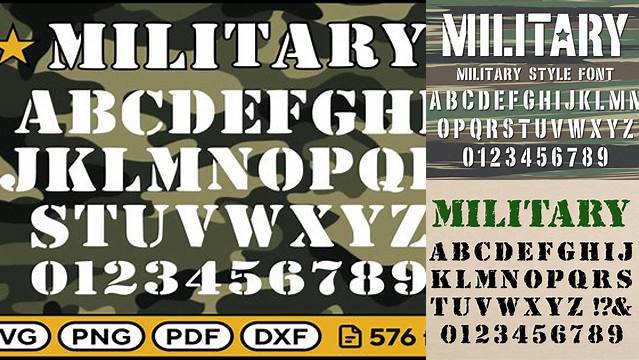
Army Font Free Download: Western & Military Styles
Hey guys! Looking for that perfect army font to give your project a rugged, military, or Western vibe? You've come to the right place! We're diving deep into the world of army normal western font free download, exploring different styles, uses, and how to get your hands on them without spending a dime. So, buckle up and let's get started!
1. Understanding the Appeal of Army and Western Fonts
Why are army normal western fonts so popular? Well, it's all about the feeling they evoke. Army fonts often suggest strength, discipline, and a sense of history. Think classic military stencil fonts or bold, impactful lettering that screams authority. On the other hand, Western fonts bring to mind the Wild West, cowboys, saloons, and a sense of adventure. They're perfect for projects that need a rustic, vintage, or Americana feel. The combination of both styles makes for a versatile and powerful design choice. Whether you're designing a poster, a logo, or even a video game, using the right army normal western font can instantly set the tone and grab attention. So, understanding their appeal is the first step in choosing the perfect font for your project.
2. Key Characteristics of Army Style Fonts
When we talk about army style fonts, we're generally referring to fonts that emulate the kind of lettering you might see on military vehicles, equipment, or official documents. These fonts often have a strong, bold, and no-nonsense appearance. A key characteristic is the use of stencils, where parts of the letters are intentionally broken to allow for easy application using stencils and spray paint. This gives them a very utilitarian and industrial feel. Think about the classic stencil fonts you’ve seen on crates or military signs – that’s the essence of army normal western font. You'll also find fonts with sharp, angular edges and a robust, almost mechanical look. These fonts are designed for legibility and impact, making them ideal for headings, titles, and anything where you need to convey a sense of authority and directness. The strength and clarity of army fonts make them a timeless choice for designs that need to project power and resilience.
3. Defining Western Style Fonts: A Trip to the Wild West
Now, let’s mosey on over to the Wild West and explore Western style fonts. These fonts are all about capturing the spirit of the American frontier – think rustic, vintage, and a little bit rough around the edges. You'll often see serifs with exaggerated details, like spurs or slabs, which add to the Western flair. Imagine the lettering on an old saloon sign or a wanted poster – that’s the kind of vibe army normal western font embodies. Common features include thick strokes, slightly distressed textures, and a general sense of hand-crafted authenticity. These fonts often evoke feelings of nostalgia, adventure, and a bit of outlaw charm. Western fonts are perfect for anything that needs a touch of old-fashioned Americana, whether it's a beer label, a movie poster, or even a website design. So, if you're looking to add a bit of the Wild West to your project, a Western style font is the way to go.
7. How to Install Your Downloaded Fonts
So, you’ve found your perfect army normal western font free download and the license is all clear. Awesome! Now, how do you actually use it? Installing fonts is surprisingly straightforward, but it varies slightly depending on your operating system. For Windows users, you'll typically find the font files in a ZIP folder. Extract the files (usually .ttf or .otf format), then right-click on the font file and select “Install.” Boom, done! Your font is now available in all your applications. Mac users have a similar process: double-click the font file, and it will open in Font Book. From there, just click “Install Font” and you're good to go. If you're having trouble seeing the font in your applications, try restarting them – sometimes they need a little nudge to recognize the new font. And there you have it, folks! With your army normal western font installed, you’re ready to start creating some awesome designs!
8. Best Uses for Army Style Fonts in Design Projects
Let’s brainstorm some cool ways to use army style fonts in your design projects. These fonts are absolute powerhouses when it comes to conveying strength, history, and a touch of grit. Think about using them for logos for security companies, military-themed events, or video games. They're also fantastic for posters, especially if you want to evoke a sense of urgency or importance. Army normal western font can make headings and titles stand out, grabbing the viewer's attention immediately. If you're working on a historical project, like a documentary or a museum exhibit, army fonts can add an authentic touch. You could even use them for website headers or social media graphics to give your brand a bold, authoritative presence. The key is to play with the font's inherent qualities – its strength, its clarity, its slightly industrial feel – and use it to amplify your message. So, next time you need a font that commands attention, remember the power of the army style font!
9. Creative Ways to Use Western Style Fonts
Alright, y'all, let's wrangle some ideas for using Western style fonts! These fonts are all about that rustic, vintage, Wild West vibe, so let's think about how we can lasso that feeling into our designs. They're perfect for anything related to country music, rodeos, or Western-themed events. Imagine a poster for a local saloon or a flyer for a barbeque – a Western font is a natural fit. They also work beautifully for branding projects that need a touch of Americana, like a craft brewery or a barbecue sauce company. Army normal western font can add character and authenticity to packaging designs, website headers, and even social media graphics. Think about using them for book covers, particularly for Western novels or historical fiction. And if you're feeling adventurous, try pairing a Western font with a modern sans-serif for a cool, contrasting look. The possibilities are as vast as the open range! So, saddle up and let your creativity run wild with Western style fonts!
10. Combining Army and Western Fonts for Unique Designs
Now, let’s get really creative and talk about combining army and Western fonts for some truly unique designs. This might sound like mixing oil and water, but when done right, it can create a powerful and interesting visual effect. Think about the juxtaposition of army normal western font. An army font's strict, structured feel paired with the rugged, slightly wild aesthetic of a Western font can create a sense of tension and contrast. One way to approach this is to use an army font for headings and a Western font for body text, or vice versa. This can create a visual hierarchy and add depth to your design. You could also use elements from both styles – maybe a stencil font with Western-style serifs, or a classic Western font with a military-inspired color palette. The key is to experiment and find combinations that complement each other. Don't be afraid to break the rules and push the boundaries – that's where the magic happens! Blending army normal western font is a bold move, but it can result in designs that are both memorable and impactful.
11. Pairing Army Fonts with Other Font Styles
So, you've got your awesome army font, but what other fonts play nicely with it? Pairing fonts is an art, and the goal is to create a harmonious balance that enhances your design. Army fonts, with their bold and commanding presence, often work well with simpler, more understated fonts. Think about pairing a strong stencil font with a clean sans-serif font like Helvetica or Arial for body text. This creates a clear contrast and ensures readability. Army normal western font can also look fantastic with a classic serif font like Times New Roman or Georgia, adding a touch of sophistication to the military vibe. The key is to avoid fonts that compete for attention – you want the army font to be the star of the show, with the supporting font playing a more subtle role. Experiment with different combinations and see what feels right for your project. A well-chosen font pairing can elevate your design and make your message even more impactful. Finding the perfect army normal western font is just the first step – pairing it effectively is what makes it shine!
12. Pairing Western Fonts with Other Font Styles
Let’s talk about pairing Western fonts with other styles to create visually appealing designs. Because army normal western font often have a strong personality, it’s important to choose complementary fonts that don’t clash. A popular approach is to pair a Western font with a clean, modern sans-serif font. This creates a nice contrast between the rustic and the contemporary, adding a touch of sophistication. Think about using a bold Western font for headings and a simple sans-serif like Open Sans or Lato for body text. You could also pair a Western font with a classic serif font, but be careful – too many serifs can make your design look cluttered. A good option is to use a serif font with a relatively simple design, like Garamond or Palatino. The key is to balance the strong character of the army normal western font with a font that provides clarity and readability. Experimenting with different font pairings is part of the fun of design, so don’t be afraid to try new combinations and see what works best for your project!
13. Utilizing Army Fonts in Logo Design
Army fonts are a fantastic choice for logo design, especially if you want to convey strength, reliability, and a sense of authority. Think about brands that want to project a tough, no-nonsense image – security companies, tactical gear manufacturers, or even fitness brands. Army normal western font can instantly communicate these qualities. When using an army font in a logo, consider the overall aesthetic you're aiming for. A stencil font can give a rugged, industrial feel, while a bolder, more stylized army font can project a sense of power and sophistication. It's important to ensure the font is legible at different sizes, so test it out in both large and small formats. Pairing the army font with a strong visual element, like a shield or a star, can further enhance the military theme. And remember, consistency is key – use the same font throughout your branding to create a cohesive and professional image. A well-designed logo using an army normal western font can make a lasting impression and help your brand stand out from the crowd.
14. Utilizing Western Fonts in Logo Design
Western fonts can bring a unique and memorable touch to logo design, especially for businesses aiming for a rustic, vintage, or Americana vibe. Think about brands like craft breweries, barbecue restaurants, or Western-themed apparel companies. Army normal western font can evoke feelings of nostalgia, authenticity, and a bit of rugged charm. When incorporating a Western font into a logo, consider the specific personality you want to convey. A bolder, more ornate Western font can project a sense of traditional craftsmanship, while a slightly distressed font can add a touch of vintage appeal. It’s crucial to ensure the font is legible and scalable, so test it out in various sizes and formats. Pairing the army normal western font with appropriate visual elements, like a star, a horseshoe, or a rope, can further reinforce the Western theme. And remember, consistency is key – use the same font across your branding materials to create a cohesive and recognizable brand identity. A well-crafted logo using a Western font can help your brand stand out and connect with your target audience on an emotional level.
15. Designing Posters with Army Style Fonts
Let's talk about designing eye-catching posters using army style fonts. These fonts are perfect for grabbing attention and conveying a sense of urgency, strength, or importance. Think about movie posters, event announcements, or even motivational posters – army normal western font can make a powerful statement. When designing a poster with an army font, consider the overall message you want to communicate. A stencil font can give a raw, industrial feel, while a bolder, more geometric army font can project a sense of authority and precision. Think about the color palette as well – military-inspired colors like olive green, khaki, and black can enhance the theme. Use the army normal western font for headings and titles to make them stand out, and pair it with a simpler font for body text to ensure readability. Don’t be afraid to play with scale and placement to create visual interest. A well-designed poster using an army font can be incredibly effective, commanding attention and leaving a lasting impression.
16. Designing Posters with Western Style Fonts
Now, let's explore the world of designing posters with Western style fonts. These fonts are fantastic for creating posters that evoke a vintage, rustic, or Americana vibe. Think about posters for country music concerts, rodeos, or Western-themed events – army normal western font can add an authentic touch. When designing a poster with a Western font, consider the overall aesthetic you want to achieve. A bolder, more decorative Western font can give a traditional, handcrafted feel, while a slightly distressed font can add a touch of vintage charm. Think about incorporating Western-inspired imagery, like horseshoes, stars, or ropes, to further enhance the theme. Use the army normal western font for the main headlines and titles, and pair it with a simpler font for supporting text to ensure readability. Experiment with different layouts and color schemes to create a visually appealing poster. A well-designed poster using a Western font can transport your audience to the Wild West and create a memorable impression.
17. Creating Websites with Army Themed Fonts
If you're building a website with a military or tactical theme, army fonts can be an excellent choice to establish the desired atmosphere. Think about websites for security firms, survival gear retailers, or military history resources. Army normal western font can immediately convey strength, reliability, and a sense of authority. When using army fonts on a website, prioritize readability and user experience. Use the army font sparingly, primarily for headings, titles, and key call-to-actions, while using a cleaner, more legible font for body text. This ensures visitors can easily read your content. Consider the color palette – military-inspired colors like olive green, black, and gray can reinforce the theme. Ensure the army normal western font is optimized for web use to maintain fast loading times. A well-designed website using army fonts can effectively communicate your brand’s message and create a memorable online presence.
18. Creating Websites with Western Themed Fonts
For websites aiming for a rustic, vintage, or Americana feel, Western fonts can be a fantastic choice. Imagine websites for country-themed restaurants, Western wear stores, or historical societies – army normal western font can immediately evoke the desired atmosphere. When incorporating Western fonts into a website design, prioritize legibility and user experience. Use the Western font primarily for headings, logos, and eye-catching elements, while using a simpler, more readable font for body text. This ensures visitors can easily navigate your site and consume your content. Think about incorporating Western-inspired design elements, such as wood textures, sepia tones, and vintage graphics, to enhance the theme. Ensure the army normal western font you choose is web-optimized for fast loading speeds. A well-designed website using Western fonts can create a unique and engaging online experience that resonates with your target audience.
19. Designing Military Style Invitations
Planning a military-themed event? Army style fonts are your go-to choice for designing invitations that set the tone perfectly. Whether it's a military ball, a veteran's celebration, or a themed birthday party, army normal western font can instantly convey the desired atmosphere. When designing invitations, use the army font for key details like the event title, date, and time. Consider using a stencil font for a rugged, authentic feel, or a bolder army font for a more formal, authoritative look. Pair the font with military-inspired imagery, such as flags, insignias, or camouflage patterns. Choose a color palette that complements the theme, such as olive green, navy blue, or khaki. Ensure the text is legible and easy to read, even with the bold army font. A well-designed invitation using army normal western font can create excitement and anticipation for your event.
20. Designing Western Style Invitations
For events with a Western or country theme, Western style fonts are the perfect way to create invitations that capture the spirit of the Wild West. Think about invitations for barn dances, country weddings, or Western-themed parties – army normal western font can set the stage beautifully. When designing these invitations, use the Western font for the main event details, such as the event name, location, and date. Choose a Western font that reflects the specific tone you want to convey – a rustic, slightly distressed font for a casual event, or a more elegant Western font for a formal occasion. Incorporate Western-inspired design elements, such as horseshoes, ropes, or cowboy boots, to enhance the theme. Use a color palette that complements the Western font and the overall aesthetic, such as browns, reds, and golds. Make sure the text is legible and easy to read. A well-designed invitation using army normal western font can create a memorable first impression and get your guests excited for the event.
21. Creating Social Media Graphics with Army Fonts
To add a strong, authoritative touch to your social media presence, consider using army fonts in your graphics. Whether you're promoting a military-themed event, showcasing your security services, or simply want to project a robust image, army normal western font can make a statement. When creating social media graphics, use the army font for headlines and key messages to grab attention. Choose a font style that aligns with your brand’s personality – a stencil font for a rugged look, or a bolder army font for a more commanding presence. Pair the army font with strong visuals, such as military equipment or strategic imagery. Use a color palette that reinforces the theme, like olive green, black, or navy blue. Ensure your text is legible and stands out against the background. A well-designed social media graphic using army normal western font can effectively communicate your message and enhance your online brand identity.
22. Creating Social Media Graphics with Western Fonts
For a touch of rustic charm and Americana flair on your social media, Western fonts can be an excellent choice. Whether you're promoting a country music event, highlighting your Western-inspired products, or simply want to add a vintage touch to your feed, army normal western font can set the right tone. When designing social media graphics, use the Western font for key headlines and messages to capture attention. Select a font style that matches your brand's personality – a playful Western font for a fun event, or a more classic Western font for a sophisticated feel. Incorporate Western-themed imagery, such as horses, cowboys, or vintage signs, to enhance the visual appeal. Use a color palette that complements the Western font and the overall aesthetic, such as browns, reds, and golds. Ensure your text is clear and easy to read, even on smaller screens. A well-designed social media graphic using army normal western font can help you connect with your audience and create a memorable online presence.
23. Using Army Fonts in Video Editing Projects
When working on video editing projects with a military or action theme, army fonts can add a powerful visual element to your titles, lower thirds, and on-screen text. Whether you’re creating a documentary, a video game trailer, or a short film, army normal western font can enhance the overall impact. When incorporating army fonts into your video, consider the specific tone and style of your project. A stencil font can give a gritty, realistic feel, while a bolder army font can project a sense of authority and drama. Use the army font sparingly, primarily for key titles and impactful messages, while using a clearer font for smaller text and subtitles. Ensure the text is legible and stands out against the video background. Animate the text to create dynamic and engaging visuals. A well-executed video editing project using army normal western font can significantly enhance the viewing experience.
24. Using Western Fonts in Video Editing Projects
For video projects with a Western, historical, or Americana theme, Western fonts can be a fantastic way to add visual authenticity and charm. Whether you're creating a short film, a documentary, or a promotional video, army normal western font can help set the right mood. When incorporating Western fonts into your video, consider the overall tone and style of the project. A rustic, slightly distressed Western font can give a vintage feel, while a more elegant Western font can project a sense of tradition and heritage. Use the Western font for titles, credits, and key messages to capture attention. Pair the Western font with appropriate visuals, such as historical footage, Western landscapes, or vintage imagery. Ensure the text is legible and fits well within the video frame. A well-edited video using army normal western font can create an immersive and engaging viewing experience that transports your audience to another time and place.
25. Creating Product Packaging Designs with Army Fonts
If you're designing packaging for products with a military, tactical, or robust appeal, army fonts can be an excellent choice. Think about packaging for outdoor gear, security equipment, or adventure-related products – army normal western font can convey the right message. When incorporating army fonts into product packaging, consider the target audience and the desired brand image. A stencil font can give a utilitarian, no-nonsense feel, while a bolder army font can project strength and reliability. Use the army font for key product names, descriptions, and branding elements. Ensure the text is legible and stands out against the packaging background. Use a color palette that complements the army font and the product’s theme, such as olive green, black, or camouflage patterns. A well-designed product packaging using army normal western font can effectively communicate the product’s qualities and attract the target consumer.
26. Creating Product Packaging Designs with Western Fonts
For product packaging aiming for a rustic, vintage, or Americana aesthetic, Western fonts can be a perfect fit. Consider packaging for craft beverages, gourmet foods, or handcrafted goods – army normal western font can add a touch of authenticity and charm. When incorporating Western fonts into product packaging, think about the specific product and the brand’s personality. A slightly distressed Western font can give a vintage feel, while a more elegant Western font can project a sense of tradition and quality. Use the Western font for the product name, brand name, and key marketing messages. Ensure the text is legible and visually appealing on the packaging. Incorporate Western-inspired design elements, such as rope details, wood textures, or vintage illustrations, to enhance the theme. A well-designed product packaging using army normal western font can create a memorable impression and appeal to consumers seeking products with character and history.
27. Designing Book Covers with Army Style Fonts
Army style fonts are a powerful choice for designing book covers that convey a sense of action, suspense, or military history. If your book is a thriller, a war story, or a non-fiction account of military events, army normal western font can instantly capture the reader's attention. When designing a book cover, use the army font for the title and the author's name to make them stand out. Consider the overall tone and genre of the book when selecting a specific army font – a stencil font might be suitable for a gritty war story, while a bolder font could work well for a military thriller. Pair the font with impactful imagery and a color palette that reflects the book's themes. Make sure the text is legible and the cover is visually appealing, even as a thumbnail. A well-designed book cover using army normal western font can be instrumental in attracting readers and conveying the essence of the story.
28. Designing Book Covers with Western Style Fonts
For book covers that aim to evoke the spirit of the Wild West, historical fiction, or Americana, Western style fonts are a natural choice. If your book is a Western novel, a historical romance, or a tale of adventure on the frontier, army normal western font can set the perfect tone. When designing the cover, use the Western font for the title and the author's name to create a strong visual impact. Choose a Western font that complements the book's genre and atmosphere – a slightly distressed font for a classic Western feel, or a more elegant Western font for a historical romance. Incorporate relevant imagery and design elements, such as landscapes, cowboys, or vintage details, to enhance the theme. Ensure the text is legible and the cover design is eye-catching. A well-designed book cover using army normal western font can effectively convey the book's content and entice readers to explore its pages.
29. Tips for Choosing the Right Army Font
Choosing the right army font can be crucial for creating the desired impact in your design projects. So, here are some tips to guide you: First, consider the overall tone and message you want to convey. Do you want to project strength, authority, or a rugged, industrial feel? The specific style of army normal western font you choose should align with this message. Think about the context in which the font will be used – a stencil font might be perfect for a poster or a logo, but less suitable for body text. Ensure the font is legible and scalable, so it looks good in both large and small sizes. Experiment with different font pairings to create visual balance and interest. And finally, always check the licensing terms to ensure you can use the army normal western font legally for your intended purpose. By following these tips, you can select the perfect army font to enhance your designs and make your message stand out.
30. Tips for Choosing the Right Western Font
Selecting the perfect Western font can be key to creating a design that authentically captures the spirit of the Wild West. Here are some tips to help you choose wisely: First, think about the specific atmosphere you want to create. Are you aiming for a rustic, vintage feel, or a more elegant, historical look? The style of army normal western font you select should reflect this. Consider the intended use of the font – a bolder, more decorative Western font might be ideal for headlines, while a simpler Western font may be better for body text. Ensure the font is legible and works well with other design elements. Pay attention to the spacing and kerning of the font to ensure it looks balanced and visually appealing. And as with any font, be sure to check the licensing terms before using the army normal western font in your projects. By keeping these tips in mind, you can choose the right Western font to bring a touch of the Old West to your designs.